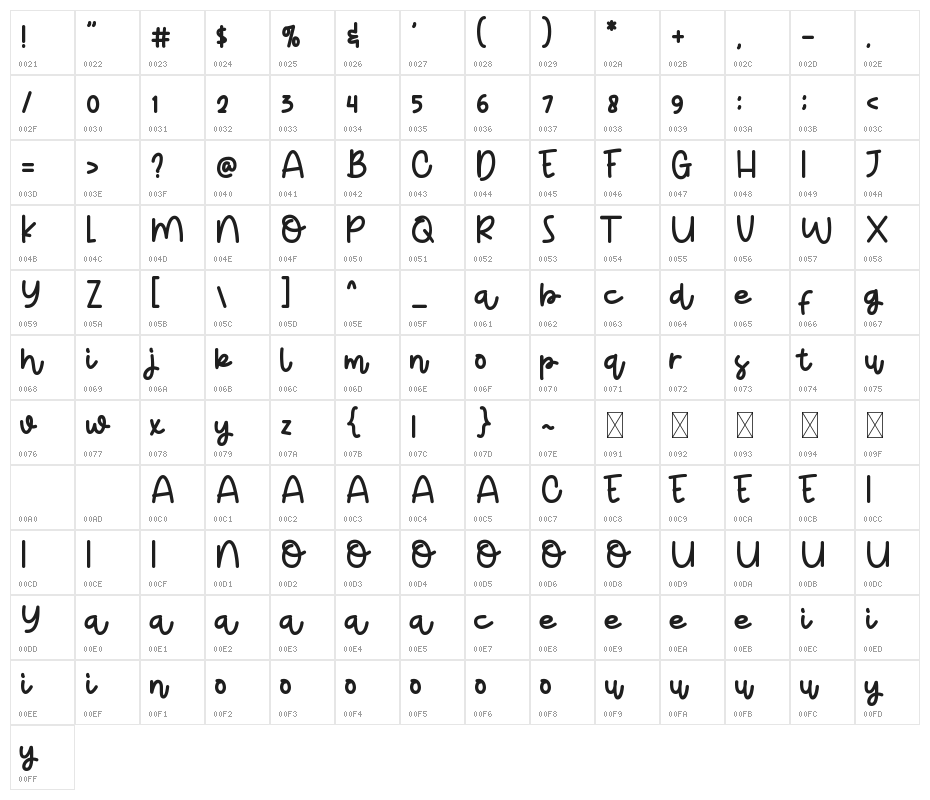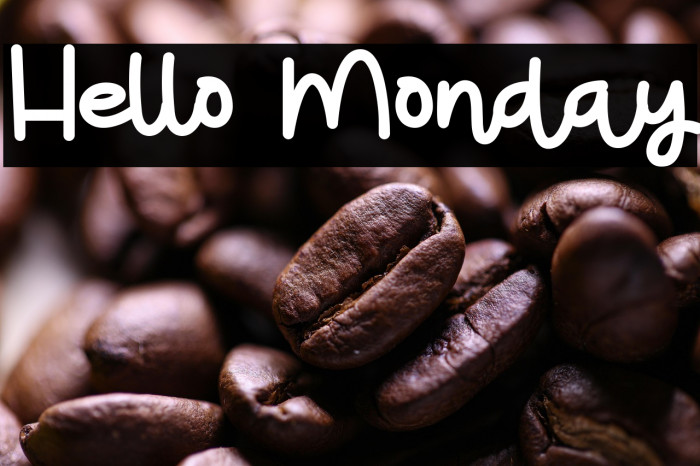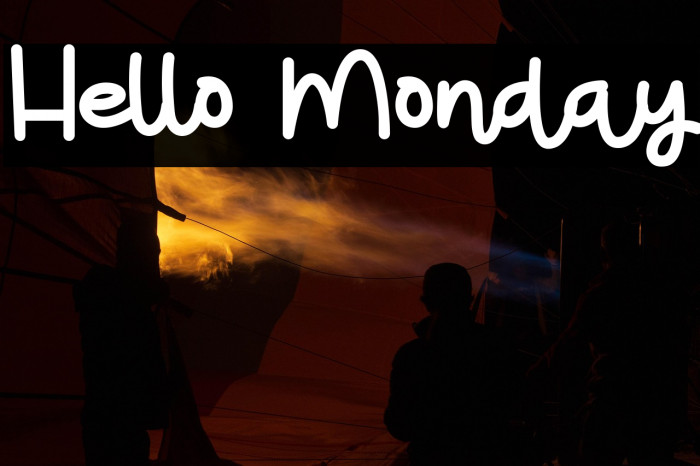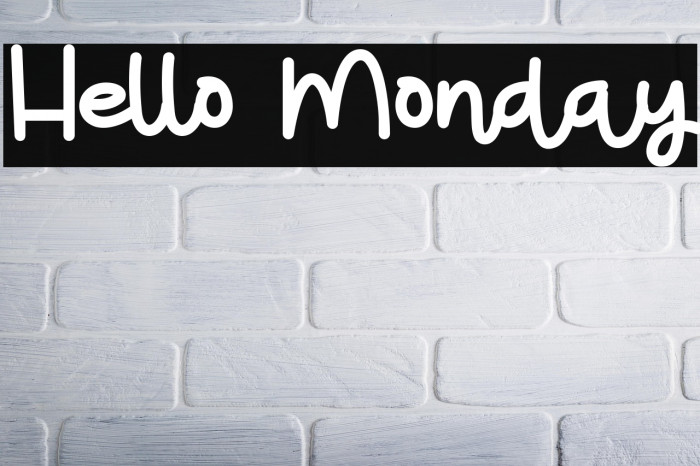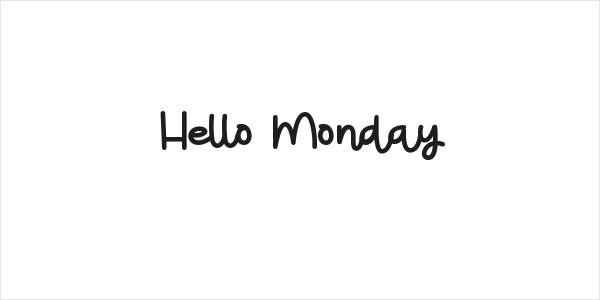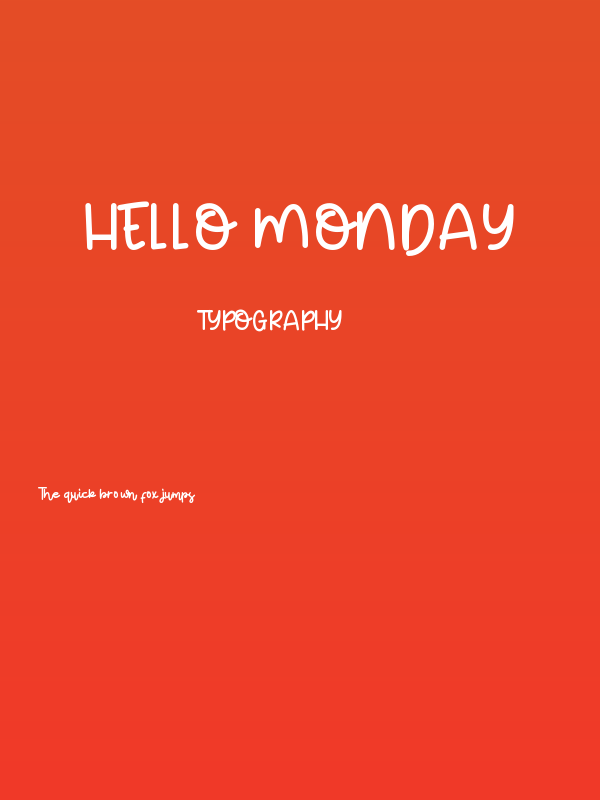
Hello Monday Font
Hello Monday Description
A playful, handwritten typeface with rounded terminals and consistent stroke width, featuring both uppercase and lowercase letters, numerals, and a variety of punctuation marks. The characters have a casual, friendly appearance with a slight slant and open counters.
Overall StylePlayful, Casual, Modern
Use CaseHeadlines, Logos, Informal body text, Invitations
Proposed ProjectsGreeting cards, children's books, posters, social media graphics, branding for creative businesses.